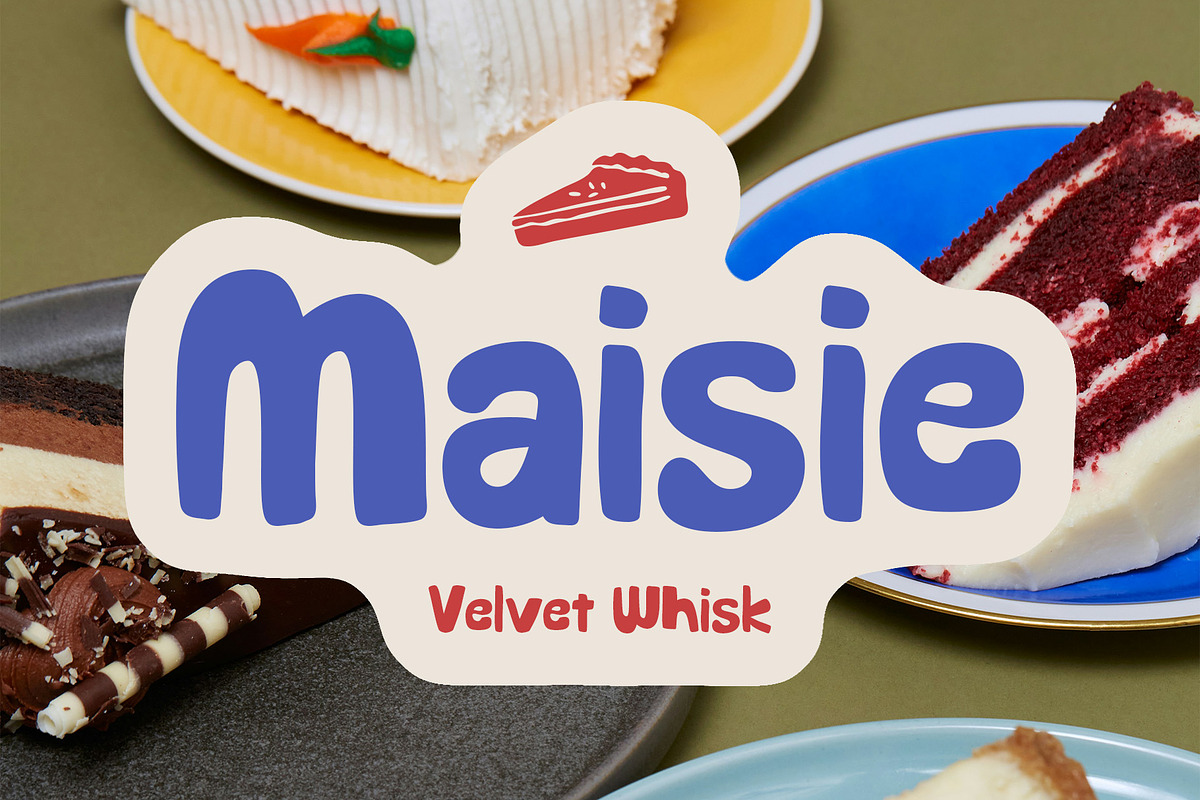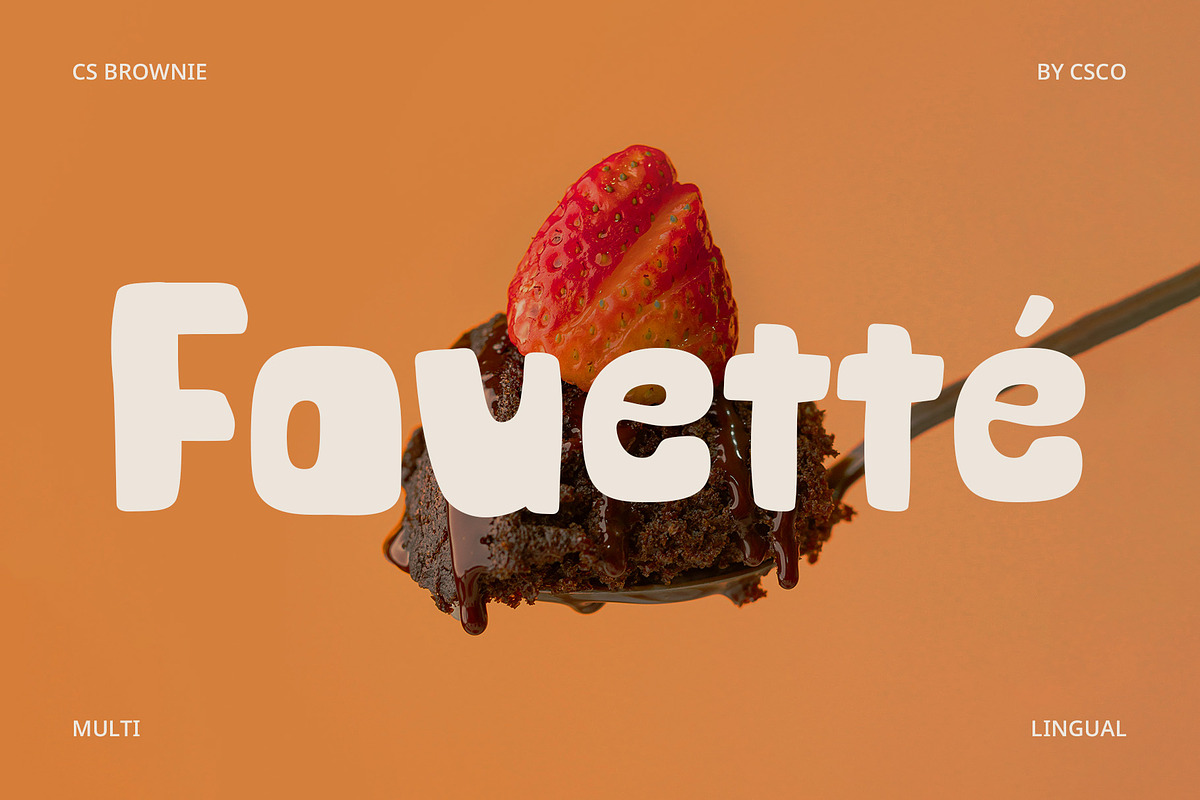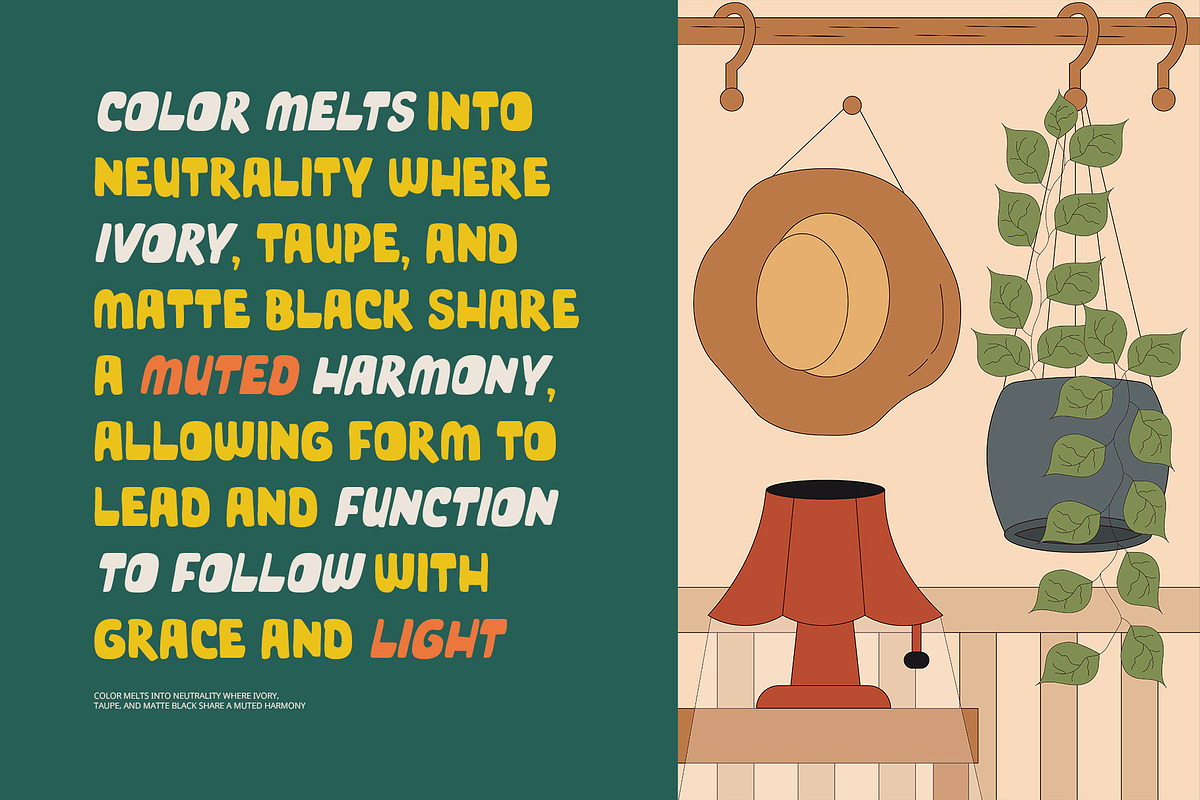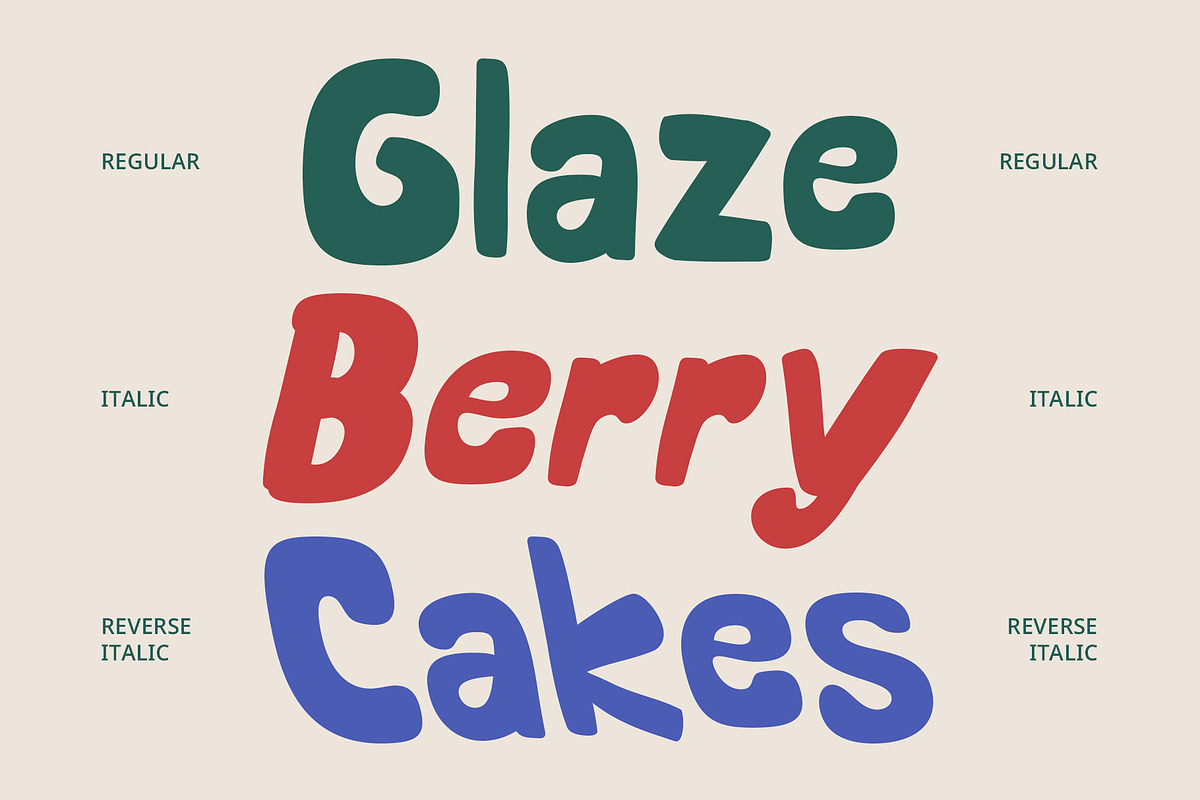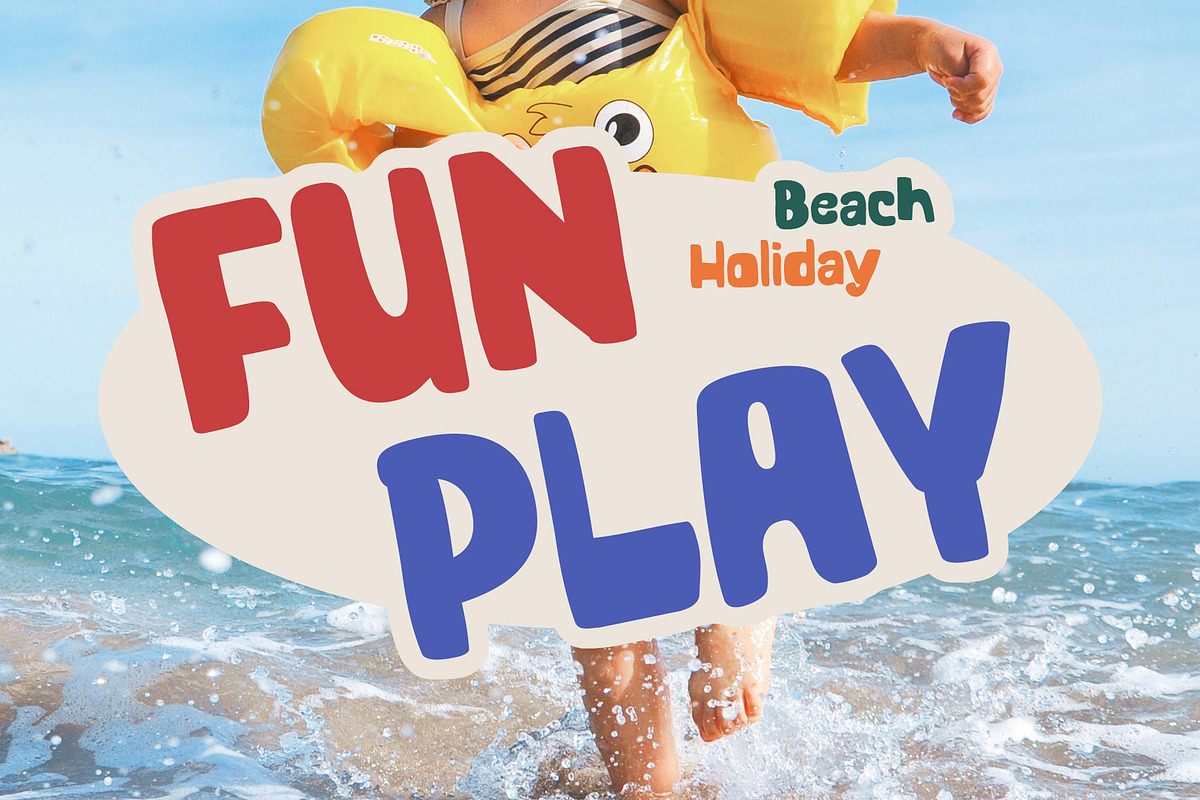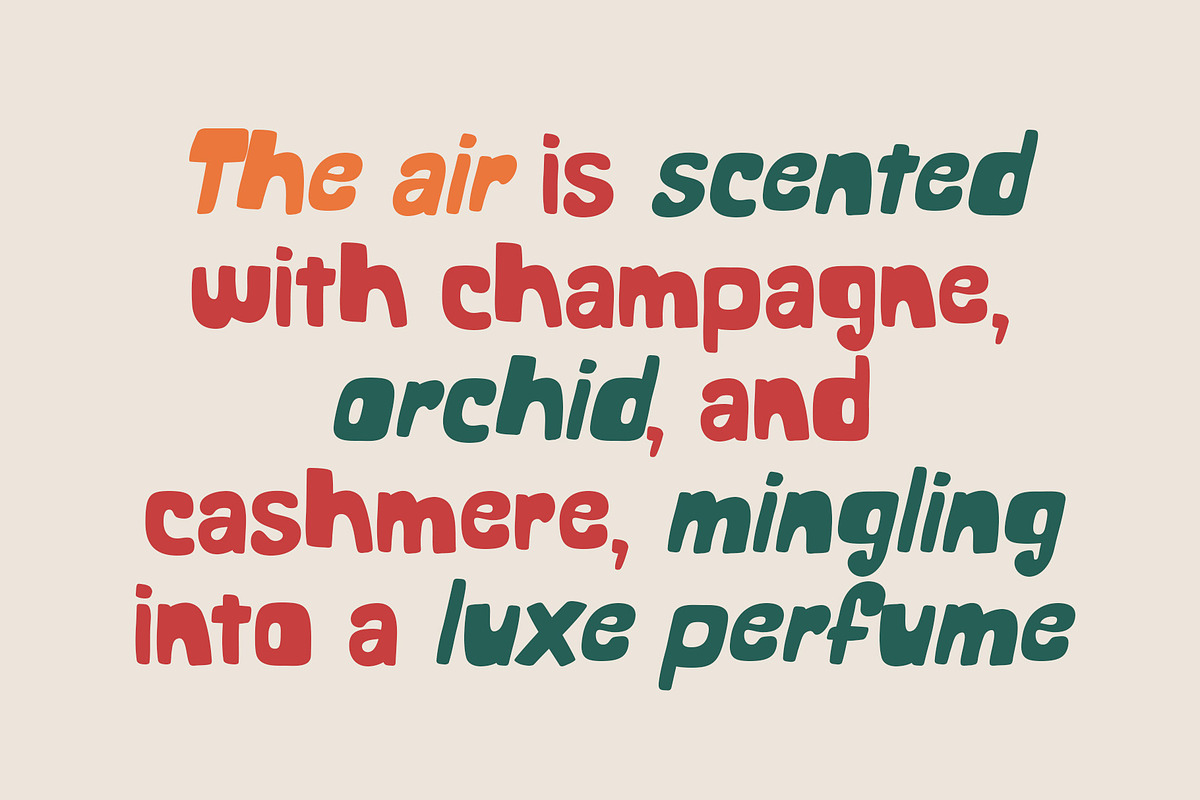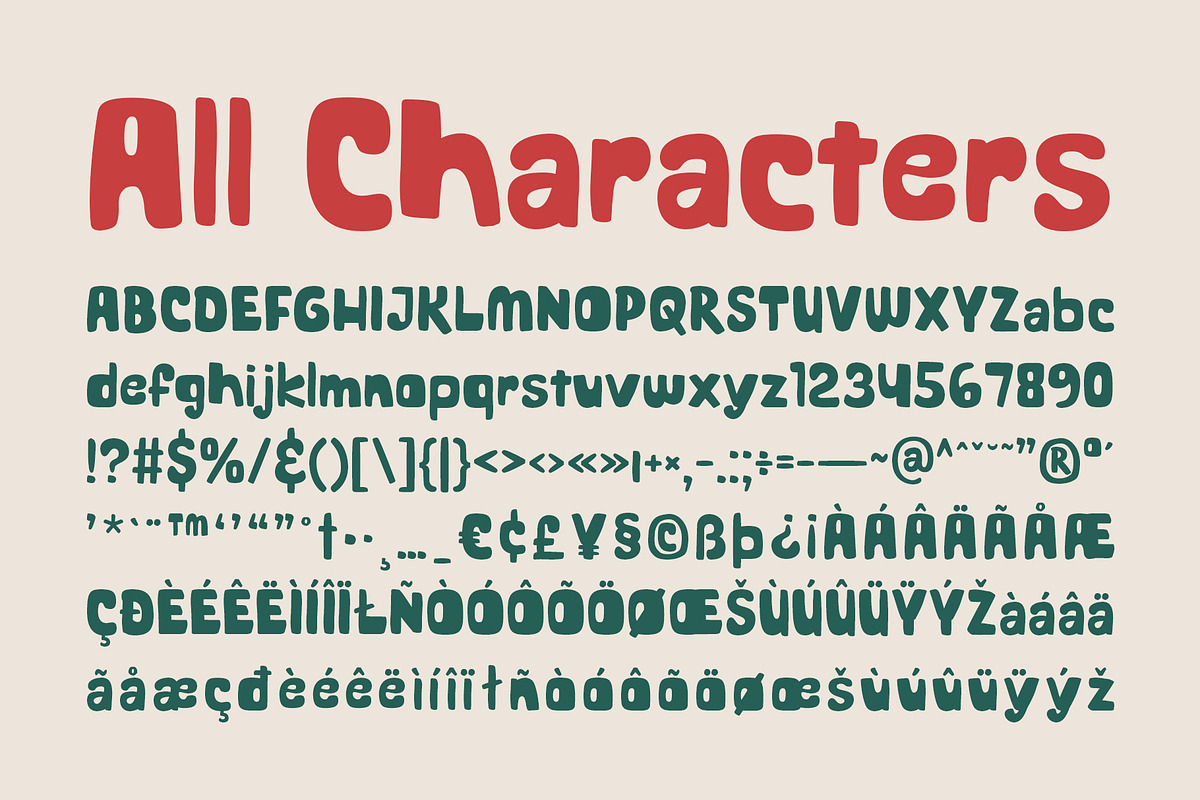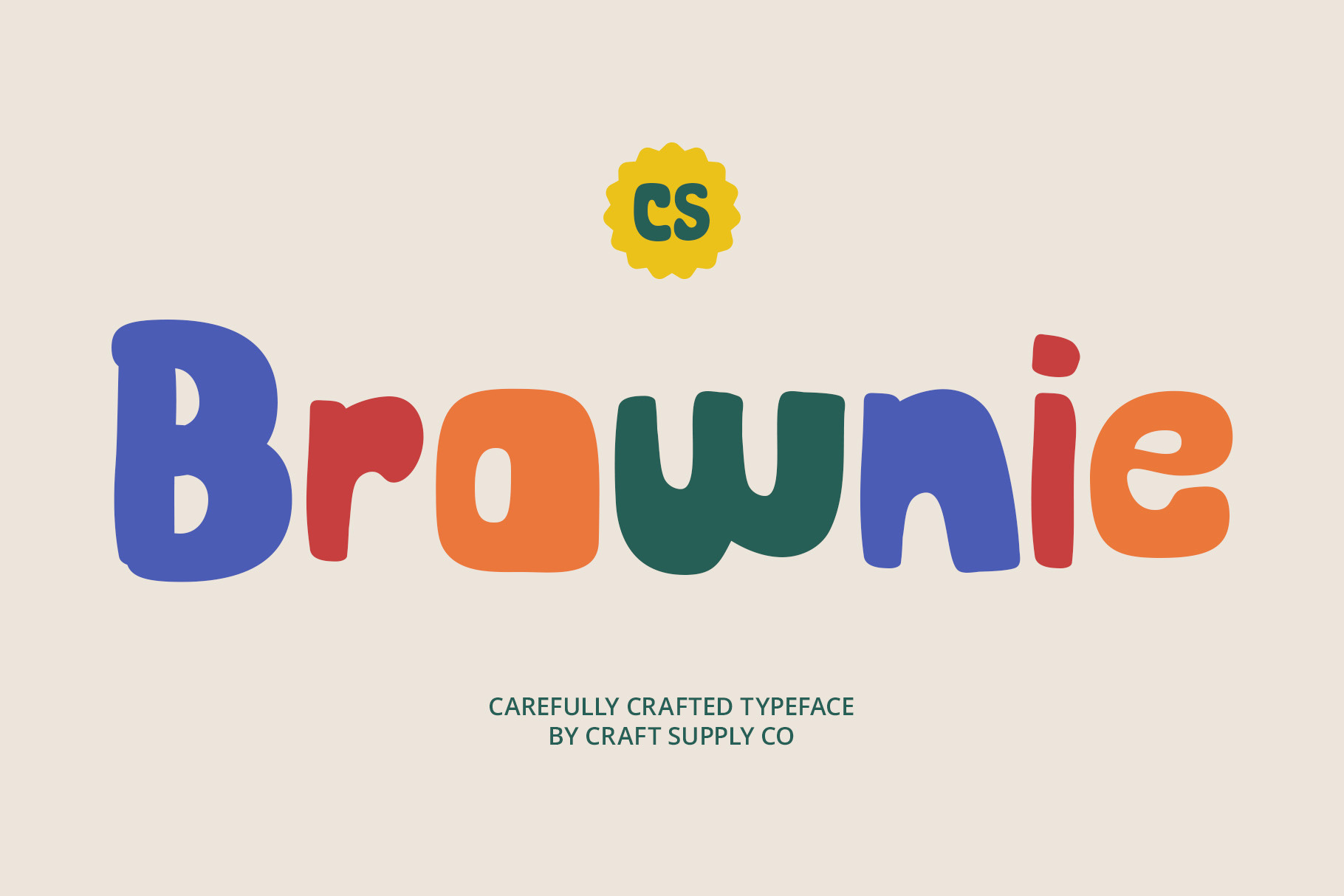
CS Brownie – Fun Font
CS Brownie – Funky and Playful Display Font
A Bold Expression of Joy and Whimsy CS Brownie is a modern display font that delivers boldness wrapped in charm. Its clean and expressive letterforms, infused with a funky, cheerful, and playful spirit, are designed to immediately grab attention while spreading positive, friendly energy across your design.
Soft Shapes, Rounded Edges, and Imaginative Curves What sets CS Brownie apart is its whimsically proportioned letterforms, crafted with rounded corners and soft edges that evoke feelings of comfort and creativity. The design plays with scale and rhythm in subtle ways, giving each letter a sense of motion, personality, and fun. These characteristics make it visually engaging, especially for youthful and energetic themes.
Perfect for Joyful, Child-Friendly Visuals CS Brownie is a natural choice for designs that aim to be fun, lively, and full of imagination. Whether you’re creating storybook titles, toy packaging, classroom posters, birthday invitations, or even kids’ apparel branding, this font adds a layer of delight and friendliness that resonates with both children and parents alike.
Inspire Laughter, Curiosity, and Creativity Rooted in the idea of visual play, CS Brownie turns typography into a joyful experience. Its approachable and vibrant aesthetic feels like it belongs in a world of fun, discovery, and storytelling. It’s a font that doesn’t just say something—it smiles as it speaks.
- CS Brownie Regular
- CS Brownie Italic
- CS Brownie Reverse Italic